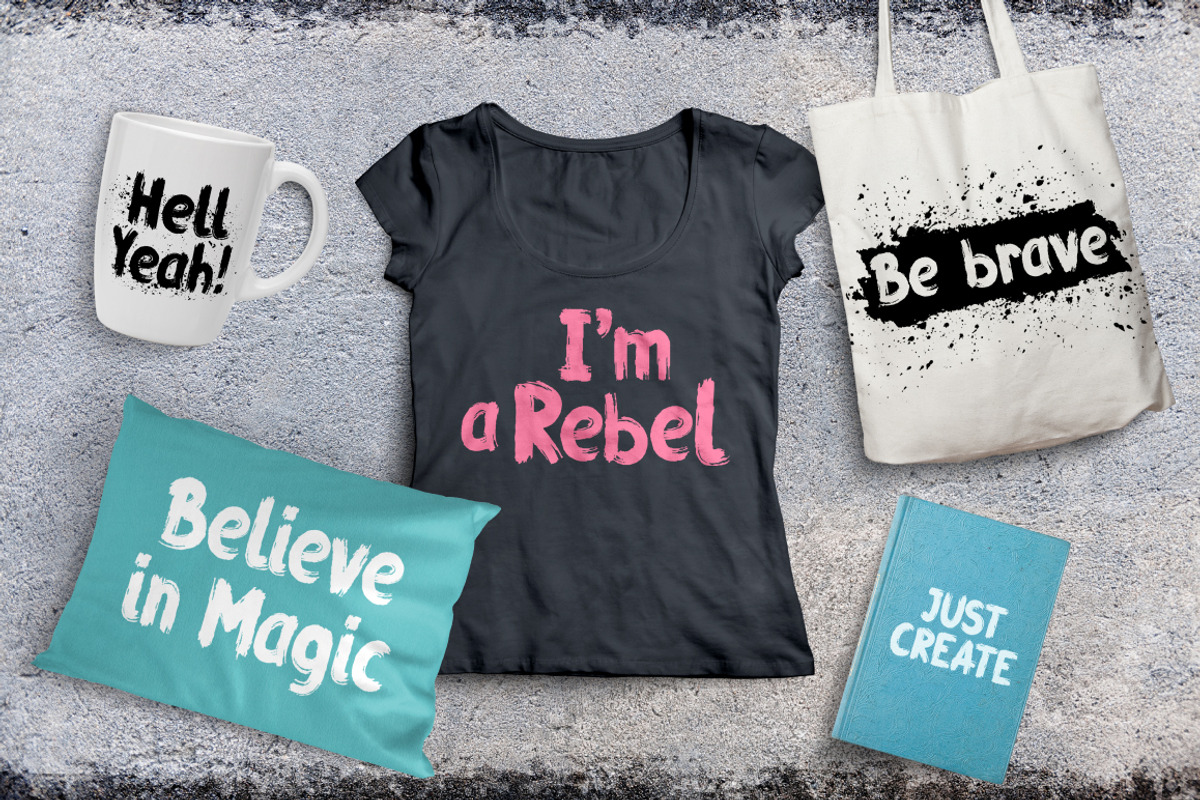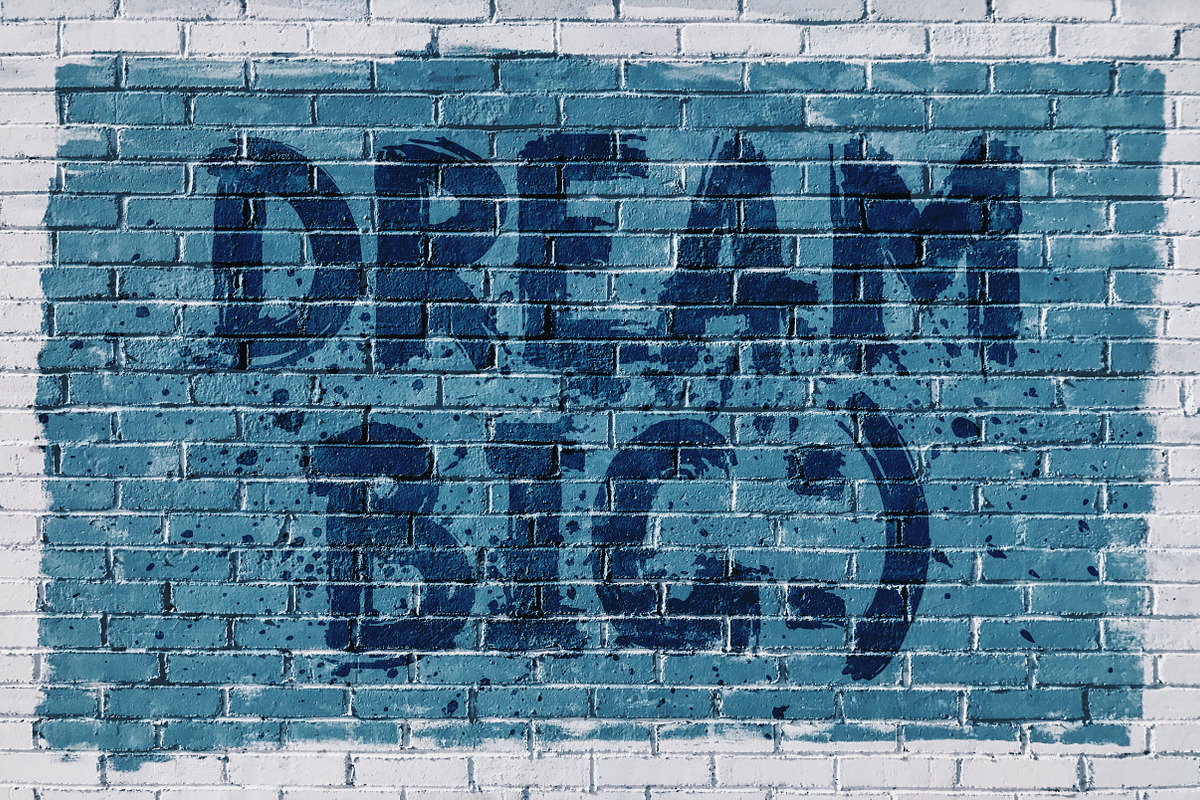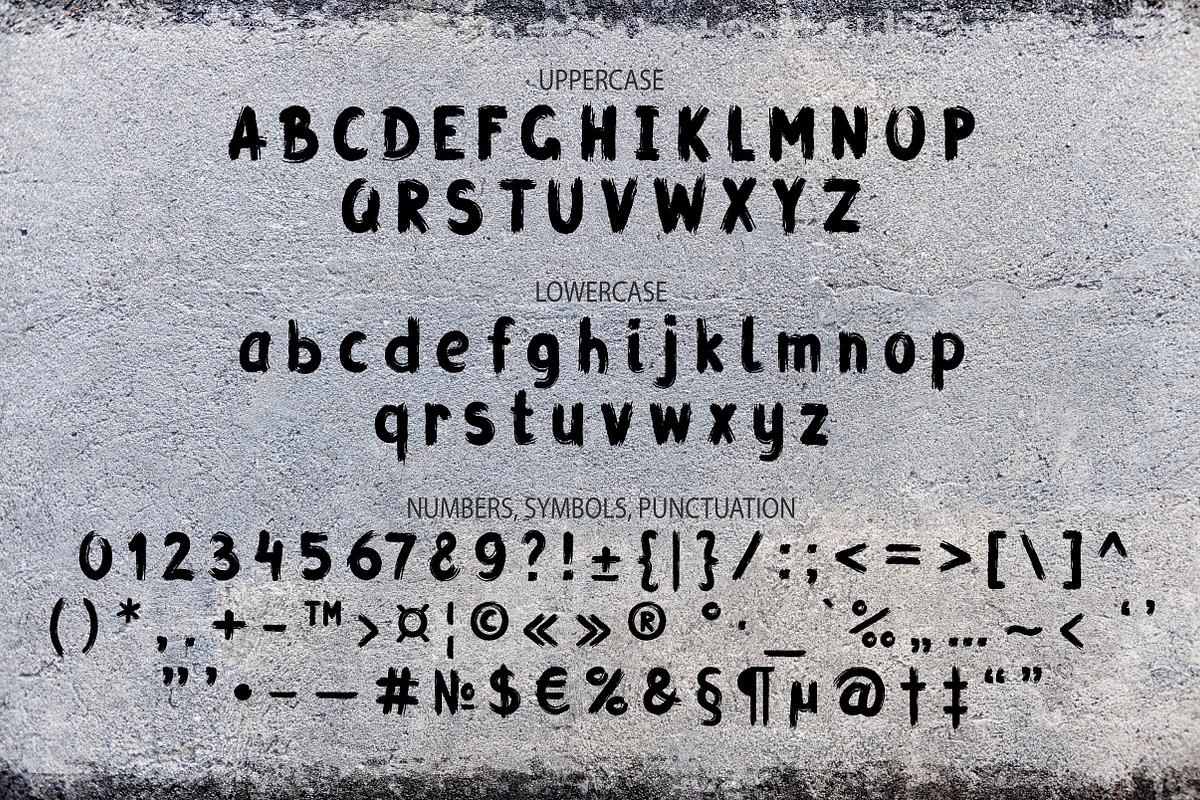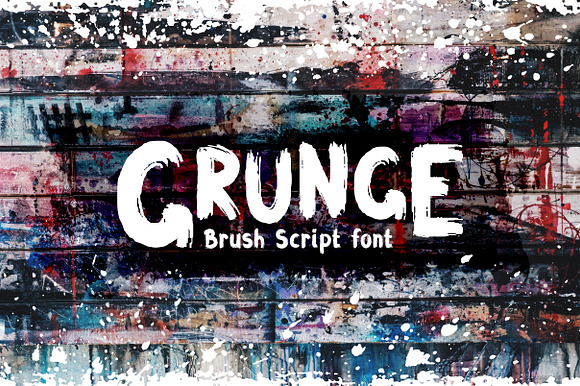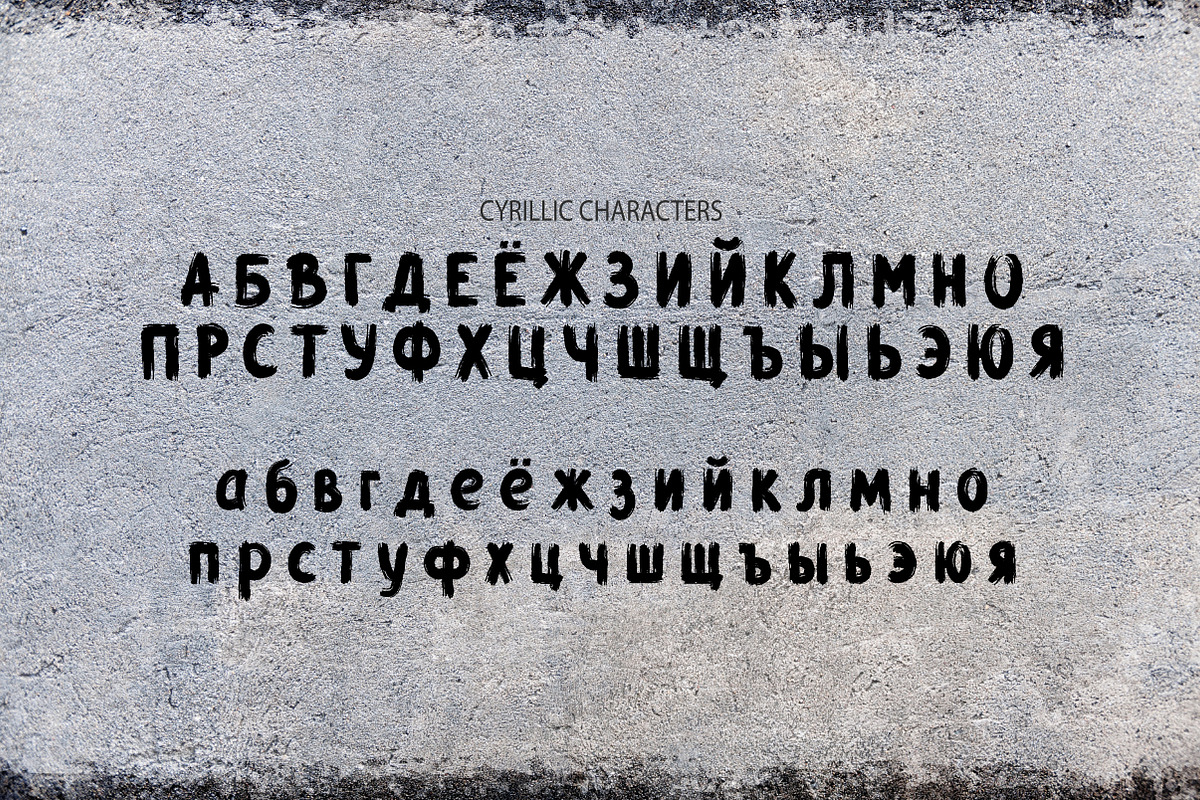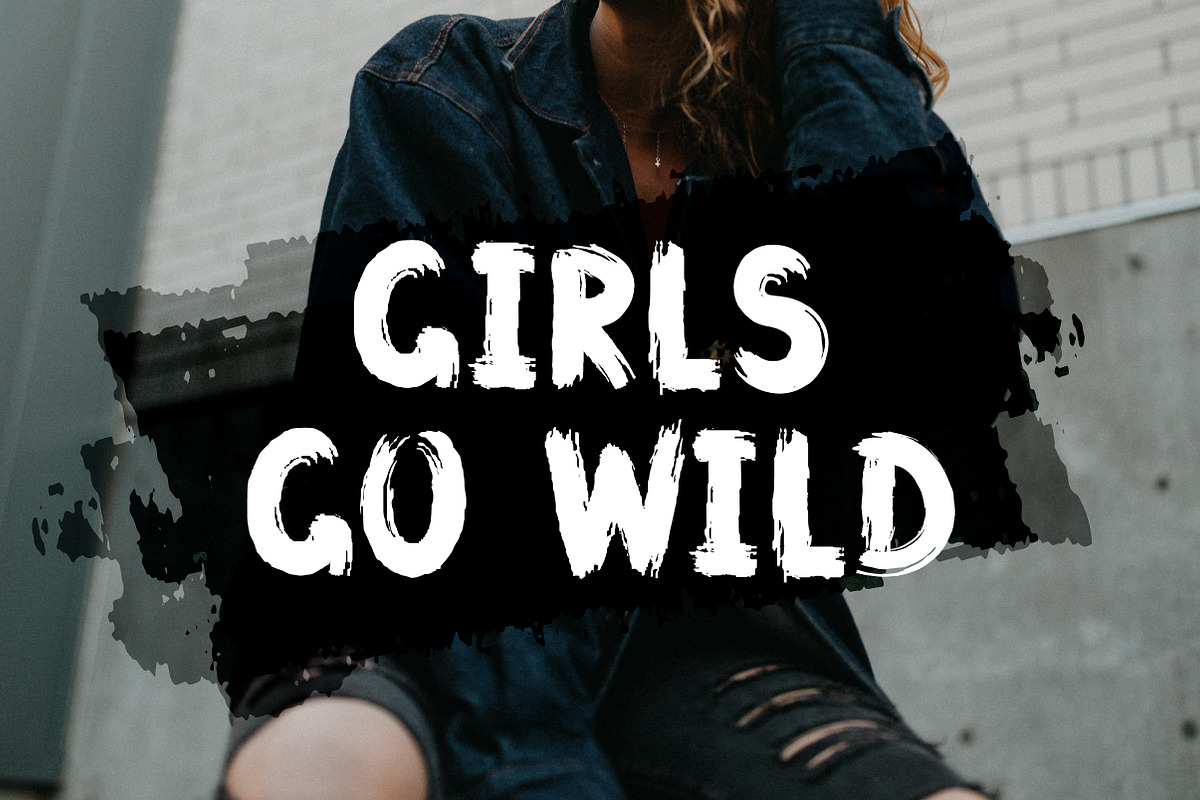
Grunge Latin and Cyrillic Brush Font
I'm introduce you Grunge – a brush script font! It has a free rough style, as if someone paint it on the wall. This font would be good for posters, quotes, headlines, book covers or anything else where you want to use that rough style font. It has latin and cyrillic characters, numbers and symbols, so you can type in this font whatever you want. Also you get ink splashes and brush strokes to decorate your design.
- It has latin and cyrillic characters, numbers and symbols, so you can type in this font whatever you want.